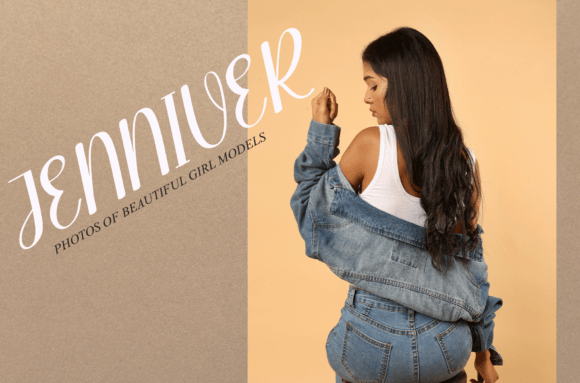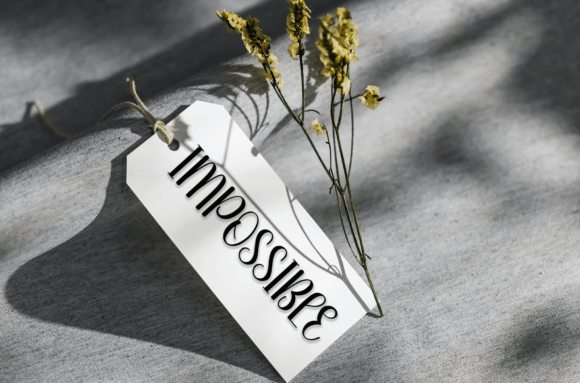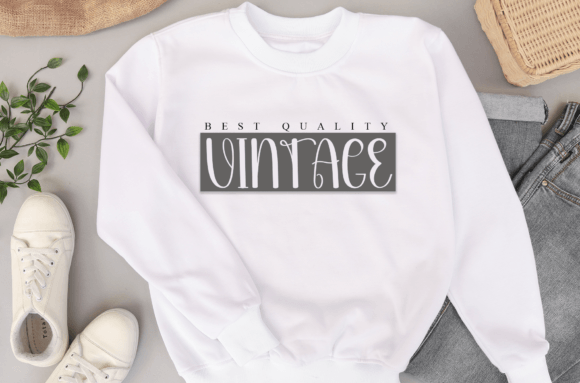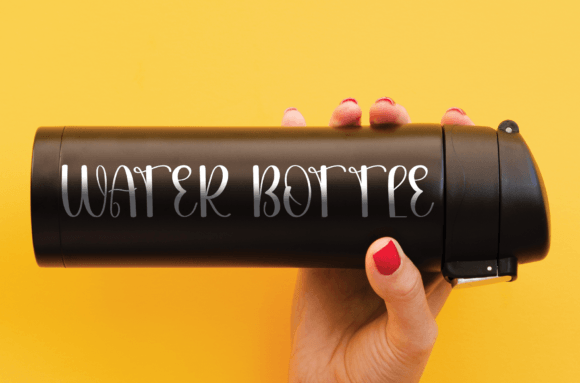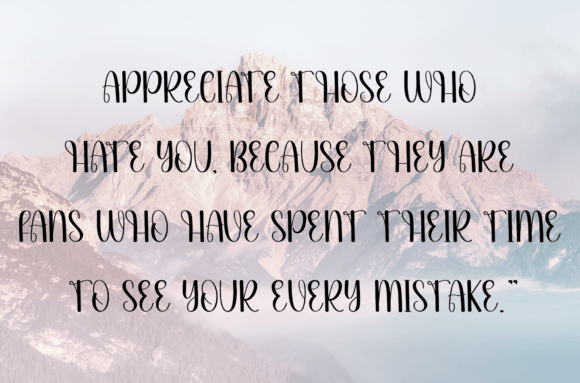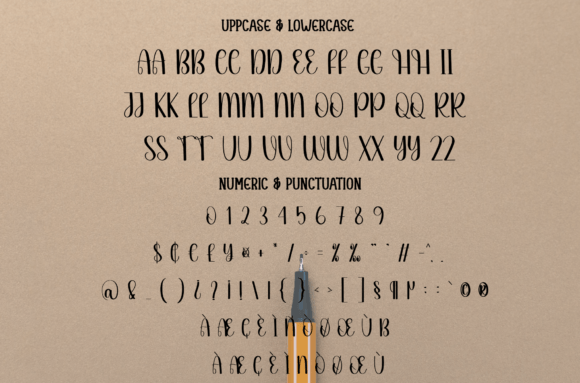
Brown Font: The Sweet and Friendly Handwritten Font for Your Creative Projects
Are you looking for a font that can add a touch of warmth and friendliness to your designs? Look no further than Brown Font! This beautiful handwritten font is perfect for creating wedding invitations, greeting cards, and other designs that require a personal and playful touch. In this article, we’ll take a closer look at Brown Font, its features, and how you can use it to elevate your creative projects.
What is Brown Font?
Brown Font is a sweet and friendly handwritten font that’s perfect for designers and crafters who want to add a personal touch to their work. This font is characterized by its fresh and neat appearance, making it ideal for a wide range of design projects. Whether you’re creating wedding invitations, birthday cards, or social media graphics, Brown Font is sure to impress.
Key Features of Brown Font
- Handwritten style: Brown Font has a beautiful handwritten style that’s perfect for creating personal and unique designs.
- Fresh and neat appearance: This font has a clean and neat appearance that’s perfect for designs that require a touch of elegance.
- Versatile: Brown Font is versatile and can be used for a wide range of design projects, from wedding invitations to social media graphics.
- Easy to read: This font is easy to read, making it perfect for designs that require a clear and concise message.
How to Use Brown Font in Your Designs
Brown Font is easy to use and can be incorporated into your designs in a variety of ways. Here are a few ideas to get you started:
- Wedding invitations: Brown Font is perfect for creating beautiful and unique wedding invitations that will set the tone for your special day.
- Greeting cards: This font is ideal for creating greeting cards for birthdays, holidays, and other special occasions.
- Social media graphics: Brown Font can be used to create eye-catching social media graphics that will help you stand out from the crowd.
- Blog posts: This font can be used to add a personal touch to your blog posts and make them more engaging.
Tips for Using Brown Font Effectively
Here are a few tips for using Brown Font effectively in your designs:
- Use it with images: Brown Font looks great when paired with images, so consider using it with photos or illustrations to create a visually appealing design.
- Experiment with colors: This font looks great in a variety of colors, so don’t be afraid to experiment and find the perfect color scheme for your design.
- Keep it simple: Brown Font is a simple and elegant font, so keep your design simple and clean to let the font shine.
Brown Font is a beautiful and versatile handwritten font that’s perfect for designers and crafters who want to add a personal touch to their work. With its fresh and neat appearance, this font is ideal for a wide range of design projects, from wedding invitations to social media graphics. By following the tips outlined in this article, you can use Brown Font to create stunning designs that will impress your audience.